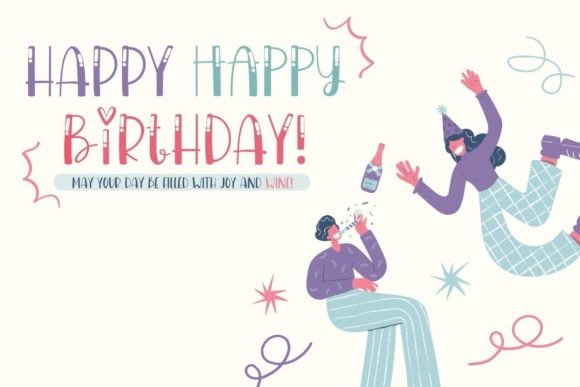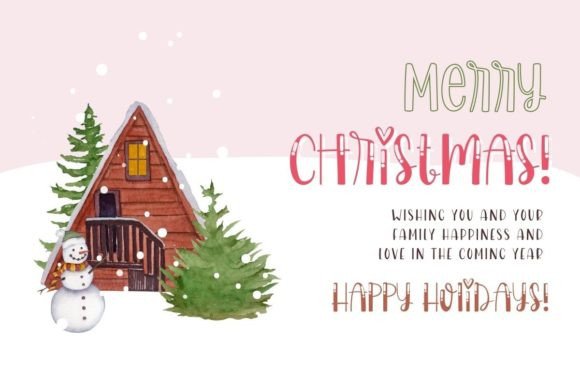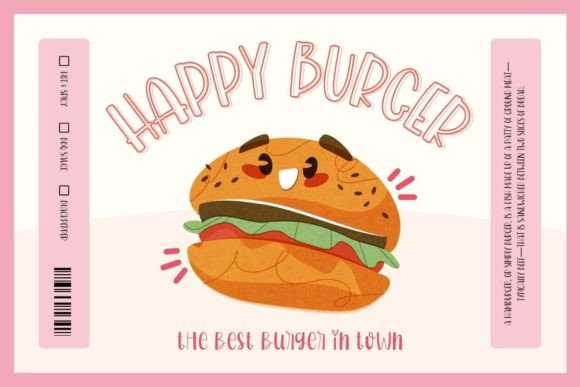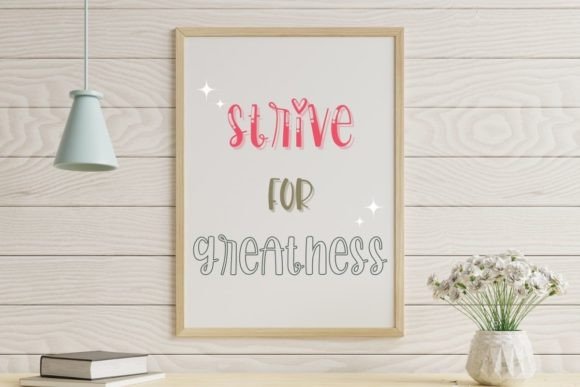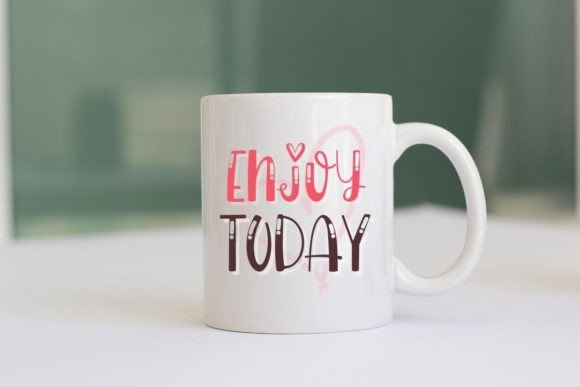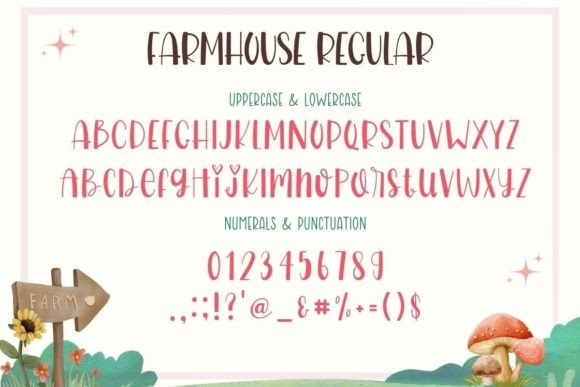
Introducing Farmhouse Font: The Perfect Addition to Your Design Toolbox
Are you a designer or crafter looking for a font that exudes a fun and bright vibe? Look no further than Farmhouse Font! This delightful handwritten display font is perfect for creating lovely designs that scream summer fun and casual charm. In this article, we’ll dive into the world of Farmhouse Font and explore its many uses, from t-shirts and stickers to food menus and packaging.
Farmhouse Font is a carefully crafted handwritten display font that embodies the carefree spirit of summer. Its unique and playful design makes it perfect for a wide range of creative projects. Whether you’re a professional designer or a DIY crafter, Farmhouse Font is sure to become a staple in your design toolbox.
Characteristics of Farmhouse Font
So, what makes Farmhouse Font so special? Here are just a few of its key characteristics:
- Fun and Bright: Farmhouse Font is designed to make a statement. Its bold and vibrant design is sure to grab attention and add a pop of personality to any design.
- Handwritten: With its handwritten feel, Farmhouse Font adds a touch of warmth and personality to any design. It’s perfect for creating projects that feel approachable and friendly.
- Display Font: Farmhouse Font is designed to be used as a display font, making it perfect for headlines, titles, and other prominent text elements.
- Cute Summery Vibe: Farmhouse Font is the perfect font for summer-inspired designs. Its lighthearted and carefree vibe is sure to evoke feelings of sunshine and happiness.
- Casual Charm: Farmhouse Font has a charming, laid-back feel that’s perfect for creating designs that feel relaxed and casual.
Uses for Farmhouse Font
So, what can you use Farmhouse Font for? The possibilities are endless! Here are just a few ideas to get you started:
- T-Shirts: Add a fun and playful touch to your t-shirt designs with Farmhouse Font. It’s perfect for creating eye-catching graphics and witty sayings.
- Stickers: Create adorable stickers with Farmhouse Font that are perfect for decorating laptops, water bottles, and more.
- Tote Bags: Add a personal touch to your tote bag designs with Farmhouse Font. It’s perfect for creating cute and functional designs.
- Candy Packaging: Make your candy packaging stand out with Farmhouse Font. Its fun and playful design is sure to appeal to kids and adults alike.
- Food Menus: Add a touch of whimsy to your food menus with Farmhouse Font. It’s perfect for creating menus that feel friendly and approachable.
Here are a few tips for getting the most out of Farmhouse Font:
- Use it as a Display Font: Farmhouse Font is designed to be used as a display font, so use it to create eye-catching headlines and titles.
- Experiment with Colors: Farmhouse Font looks great in a variety of colors, so don’t be afraid to experiment and find the perfect hue for your design.
- Pair it with Other Fonts: Farmhouse Font pairs well with a variety of other fonts, so try combining it with other fonts to create a unique and interesting design.
Farmhouse Font is a fun and bright handwritten display font that’s perfect for creating lovely designs. Its cute summery vibe and casual charm make it a versatile font that can be used for a wide range of creative projects. Whether you’re a designer or crafter, Farmhouse Font is sure to become a staple in your design toolbox. So why wait? Download Farmhouse Font today and start creating your own fun and playful designs!